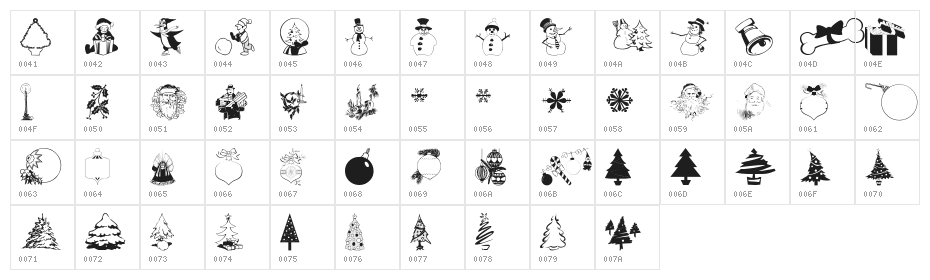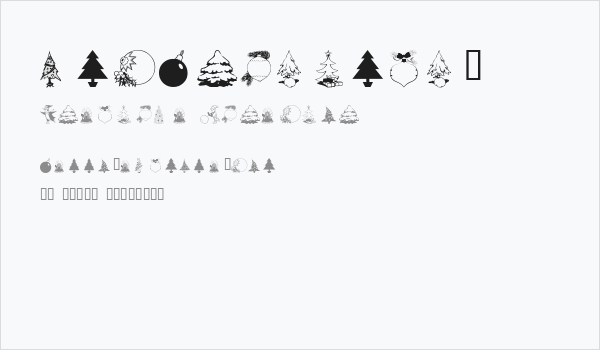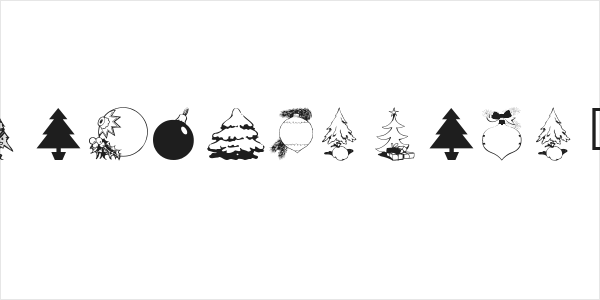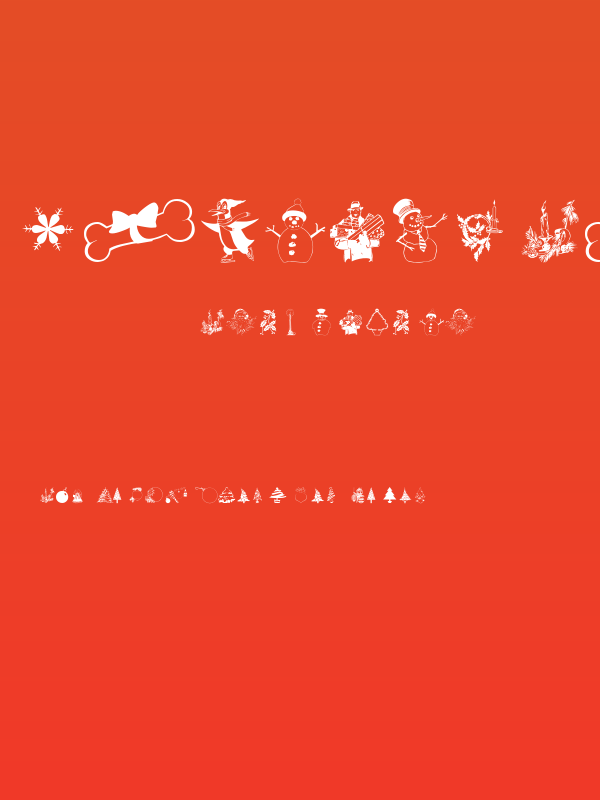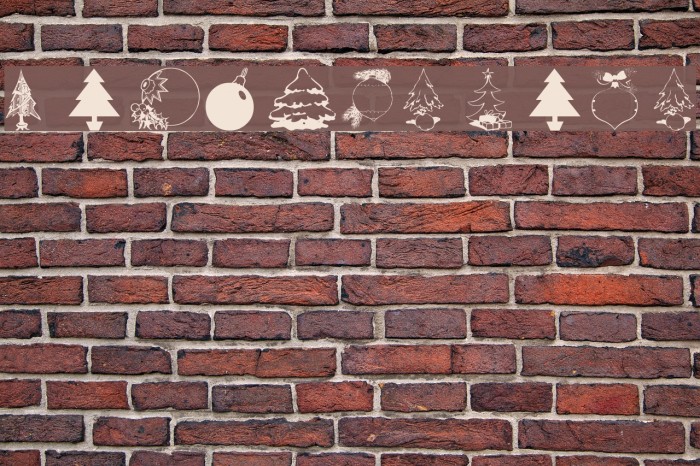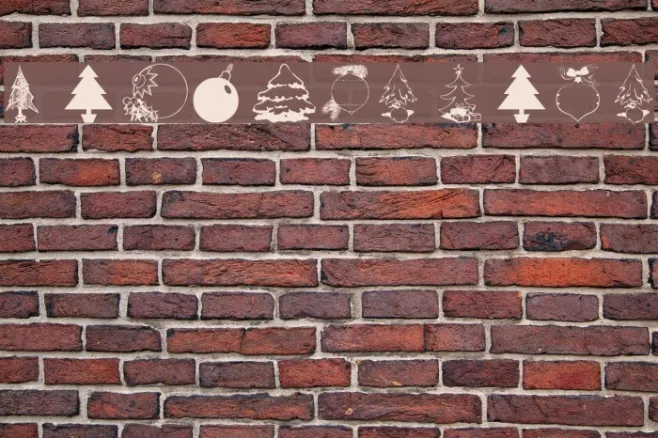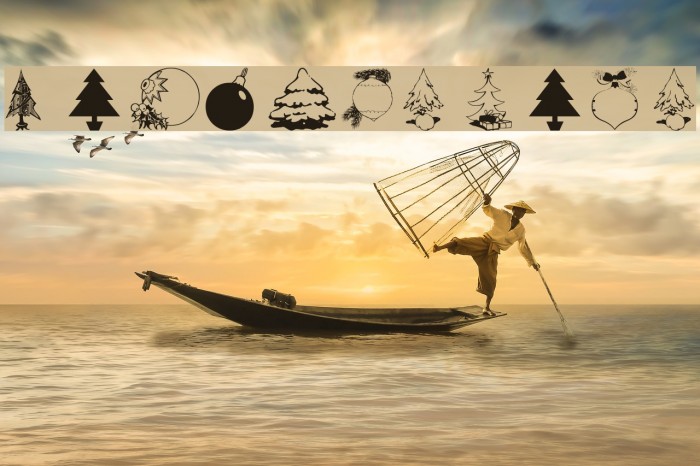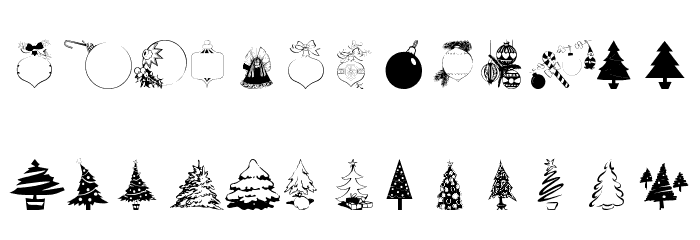
wmchristmas3 Font
wmchristmas3 Description
A decorative dingbat font featuring a variety of Christmas-themed illustrations, including trees, snowmen, Santa Claus, ornaments, presents, and festive icons. Each character is represented by a unique holiday graphic, rendered in a hand-drawn, playful style with varying levels of detail.
| Overall Style | Decorative, Playful, Festive |
| Use Case | Decorative elements, Icons, Themed graphics |
| Proposed Projects | Holiday cards, party invitations, seasonal posters, gift tags, festive social media graphics, and craft projects. |